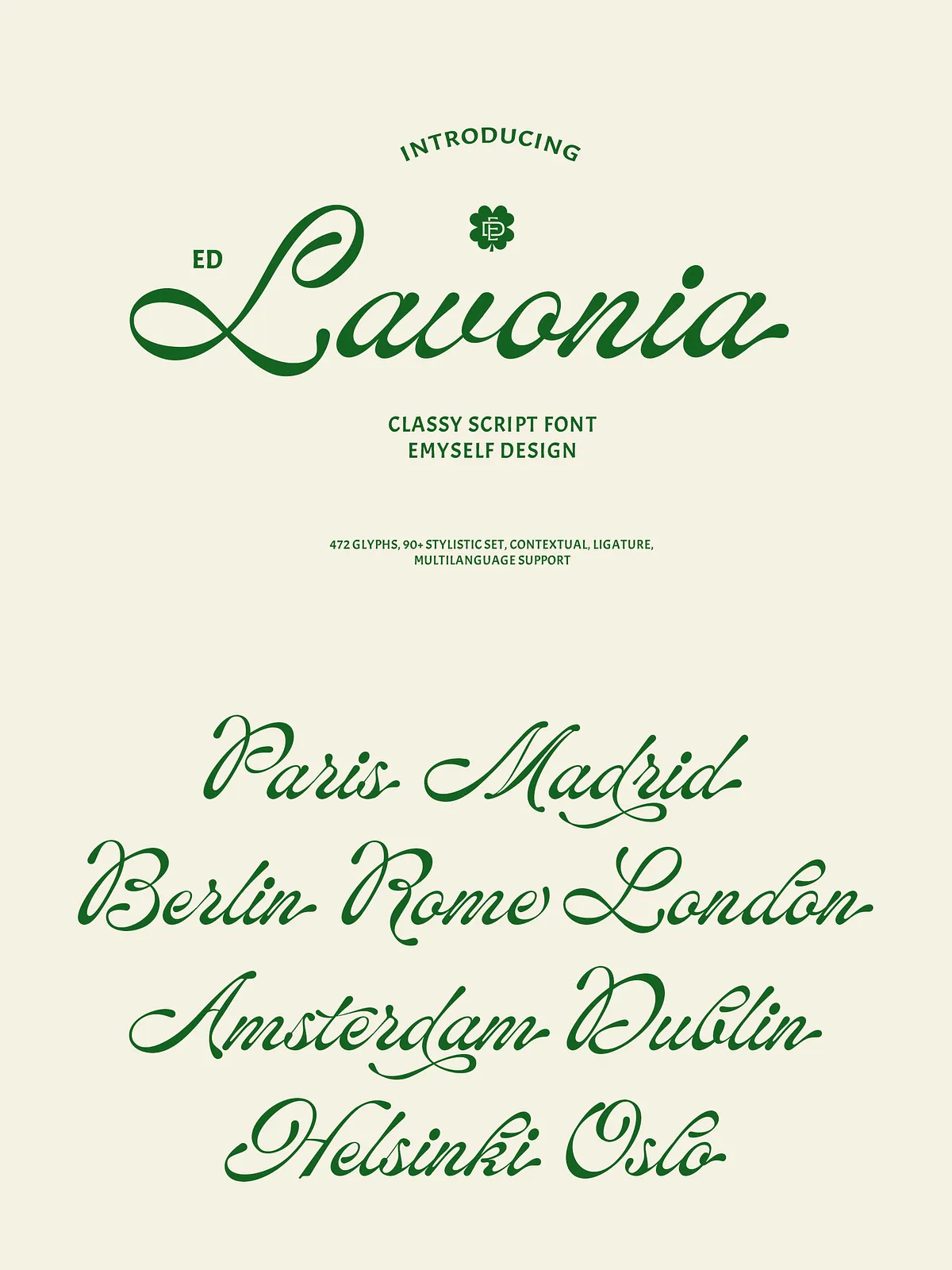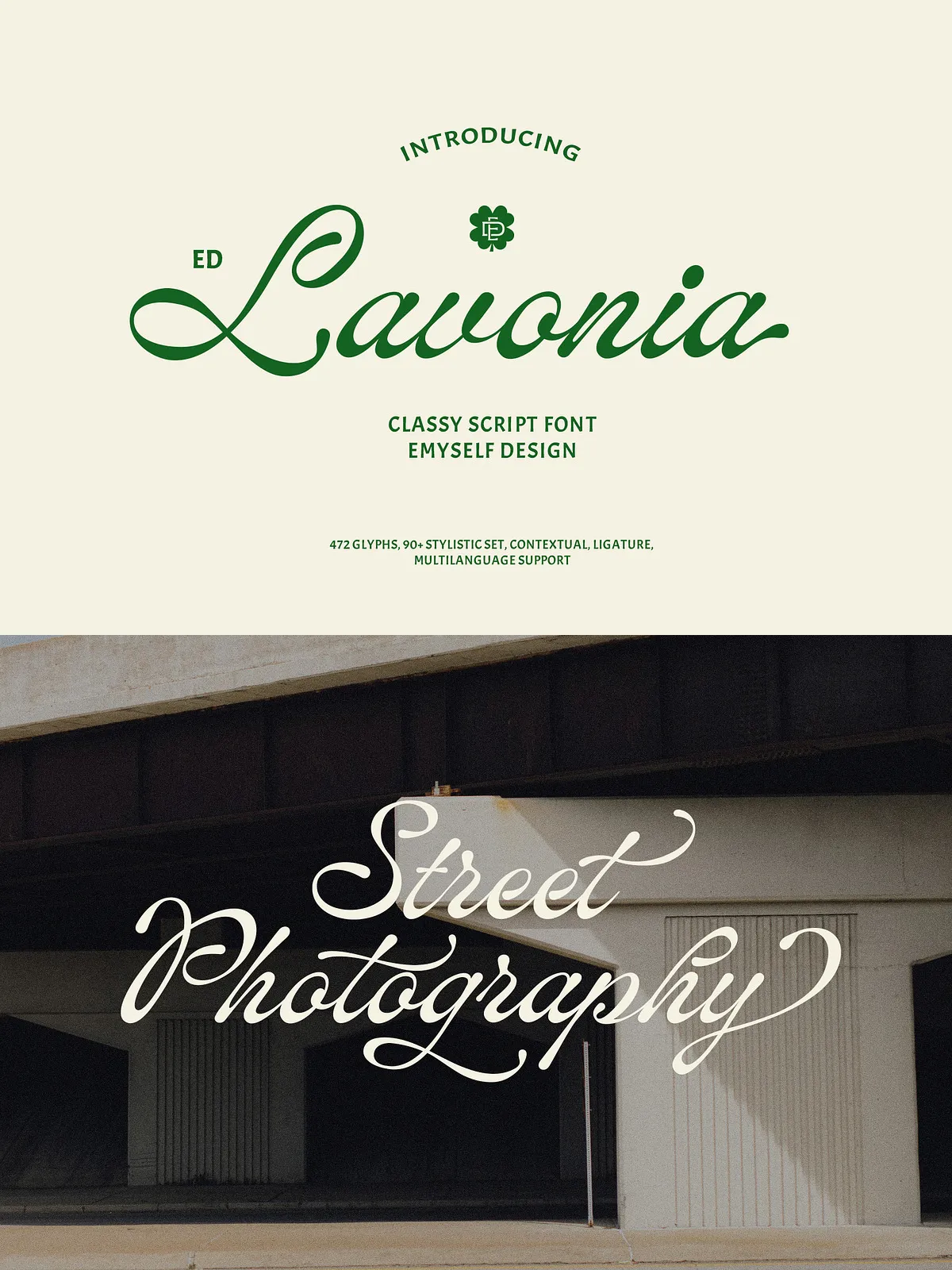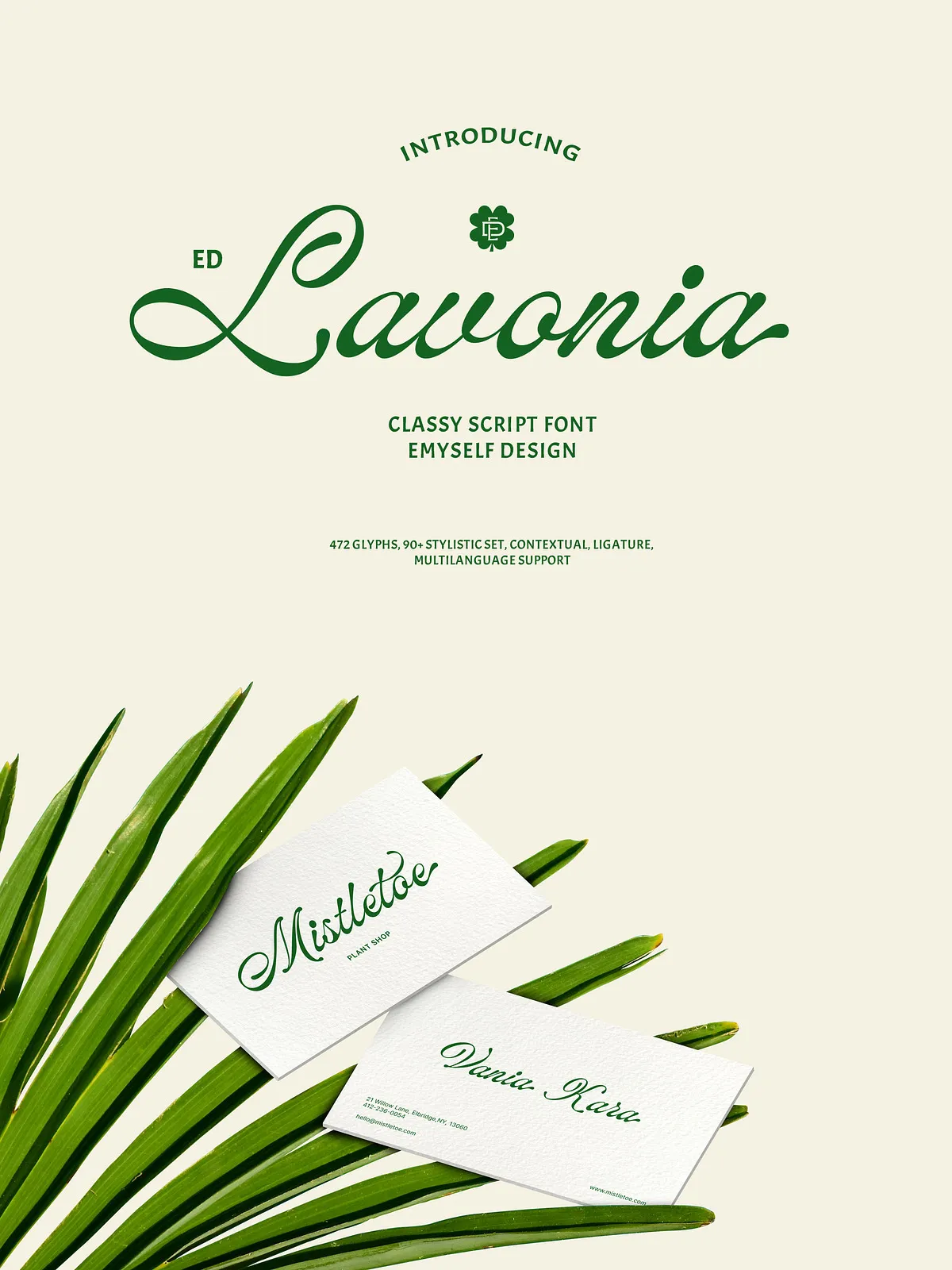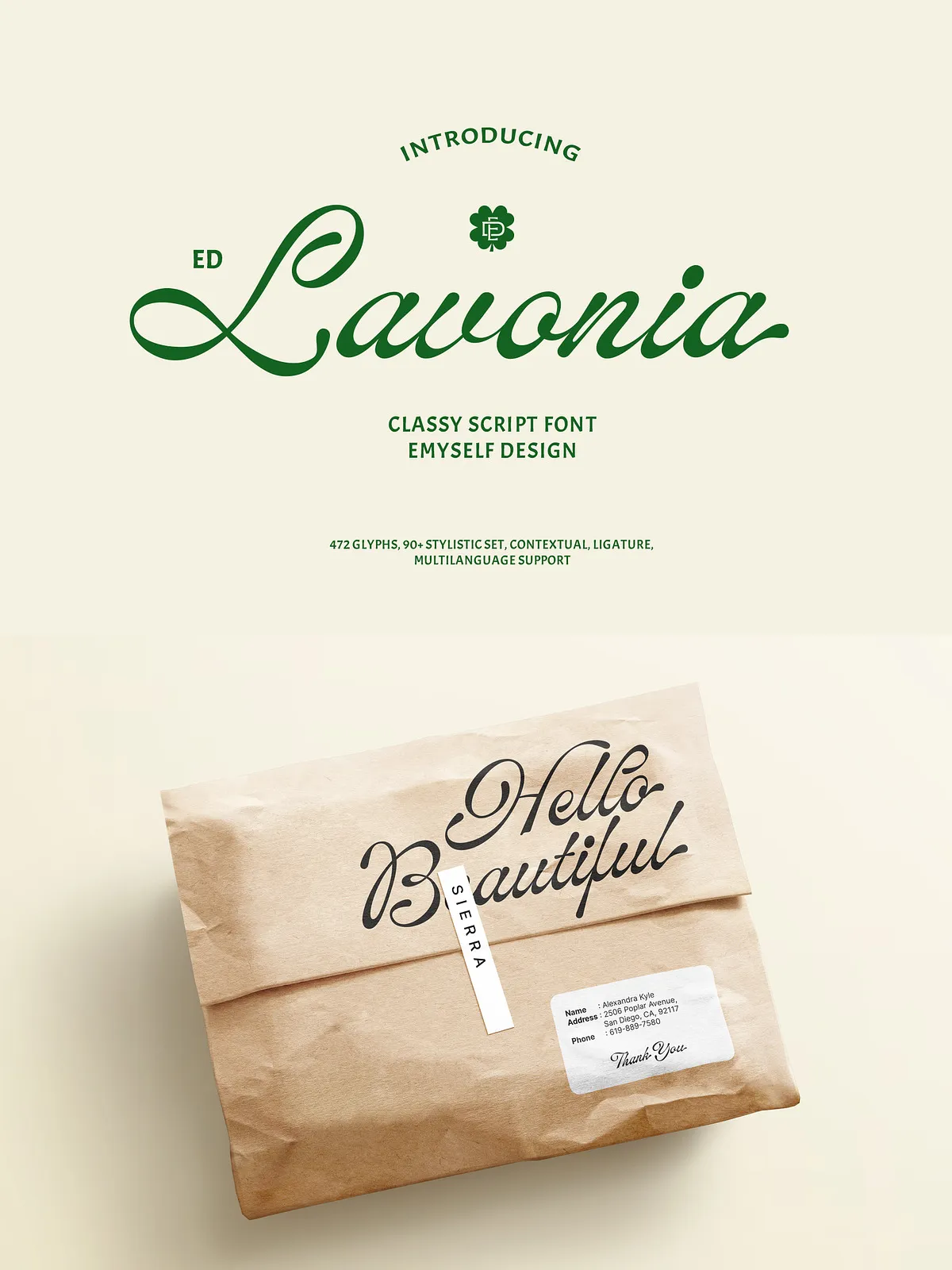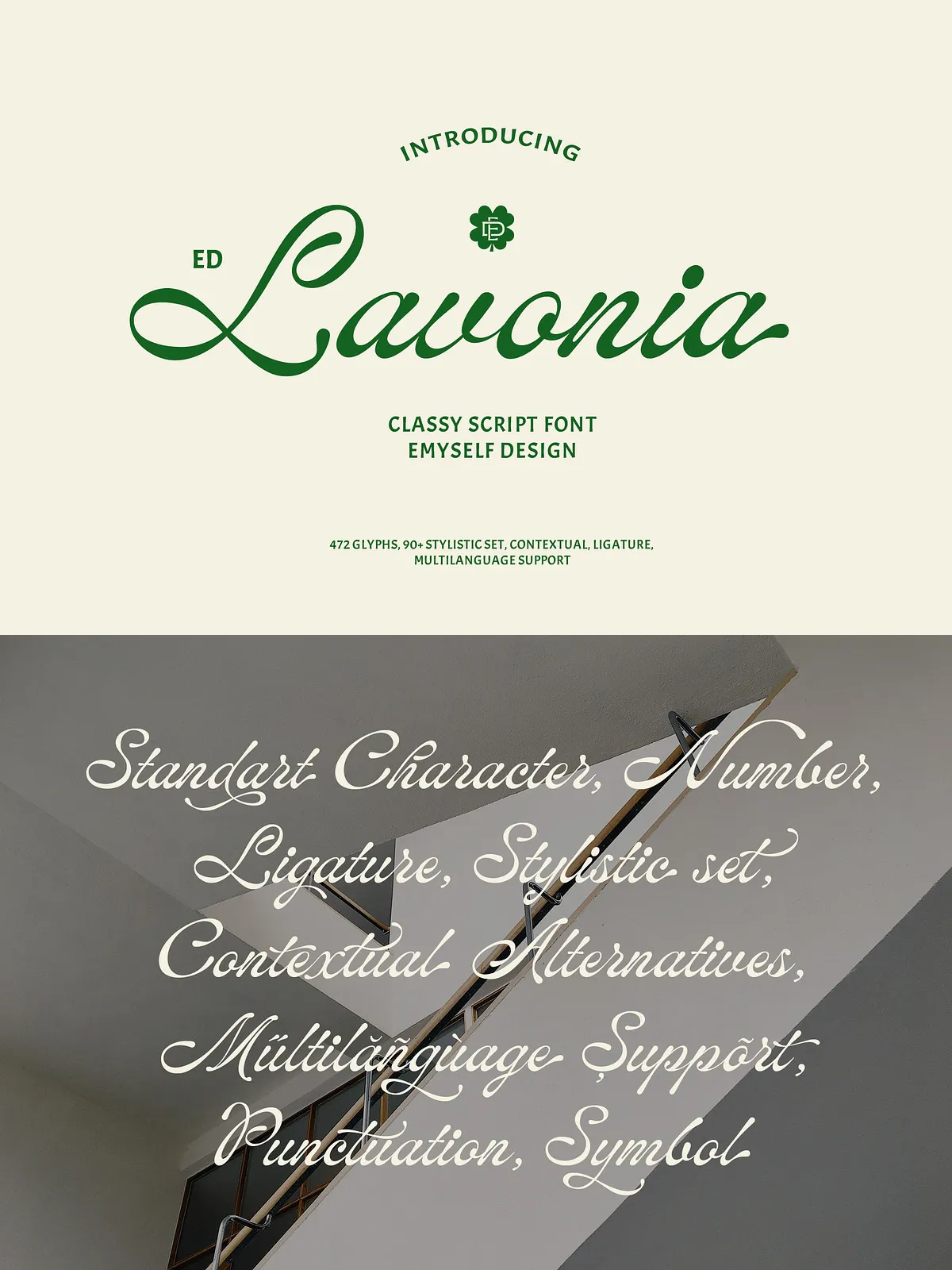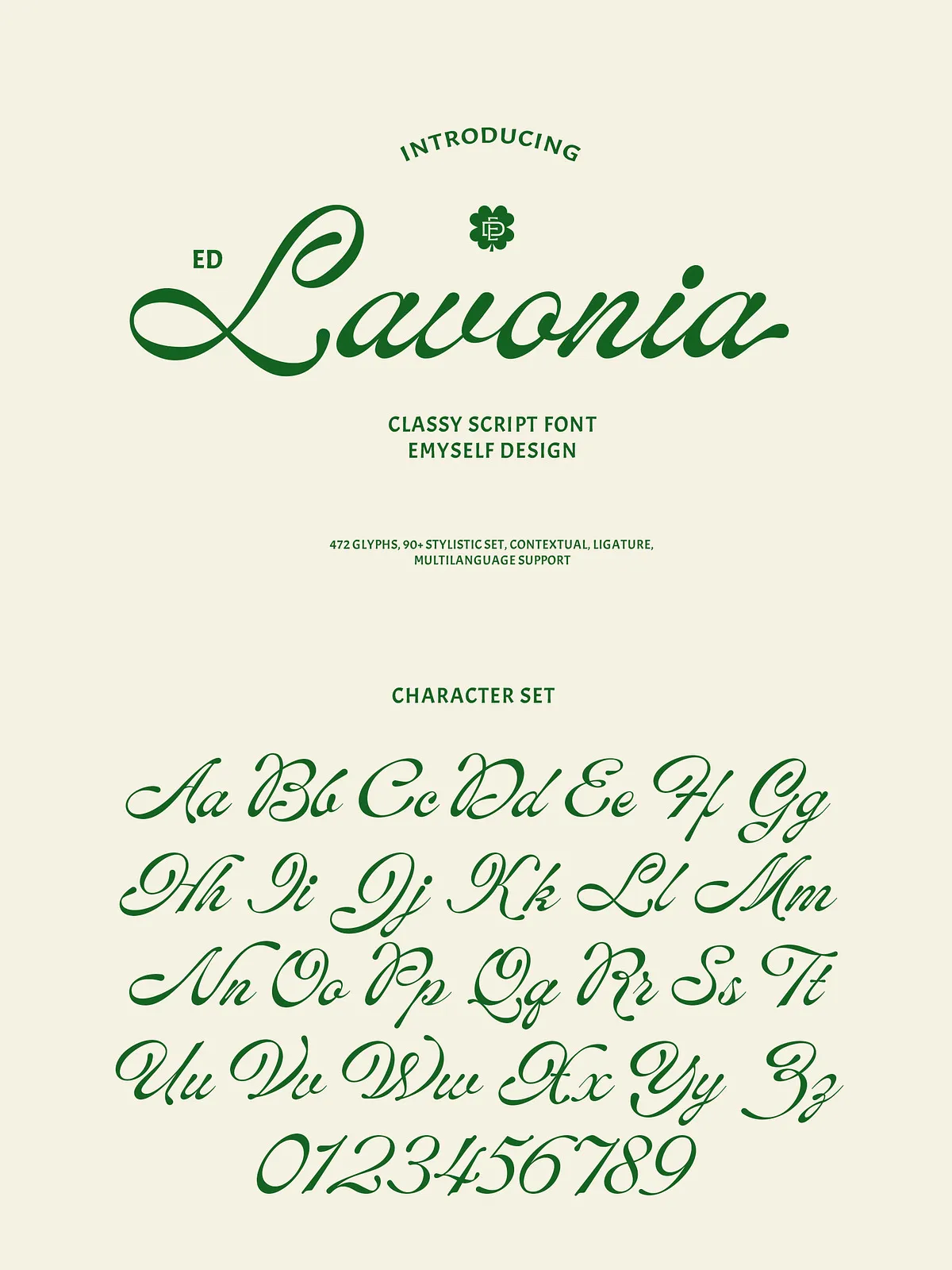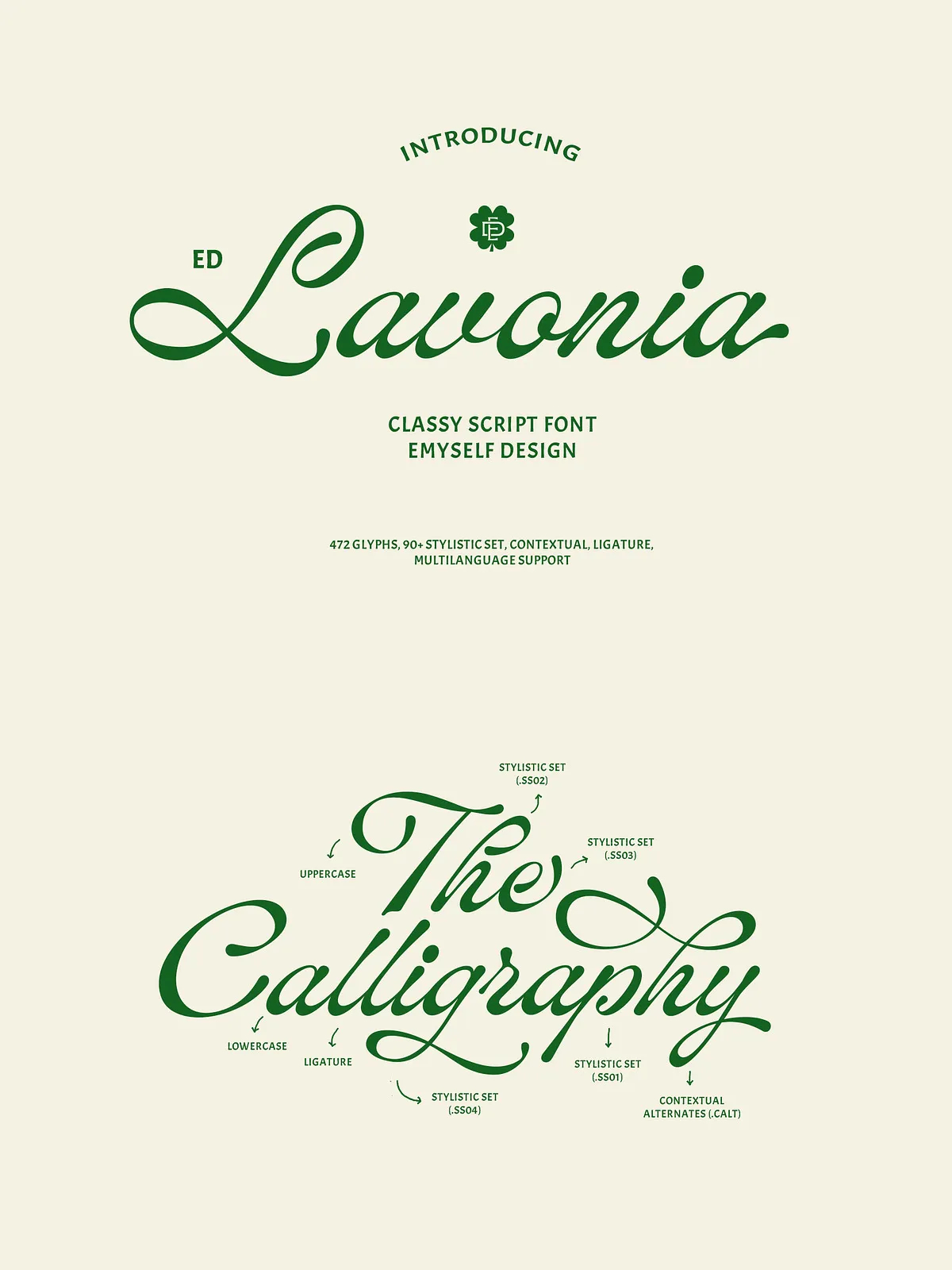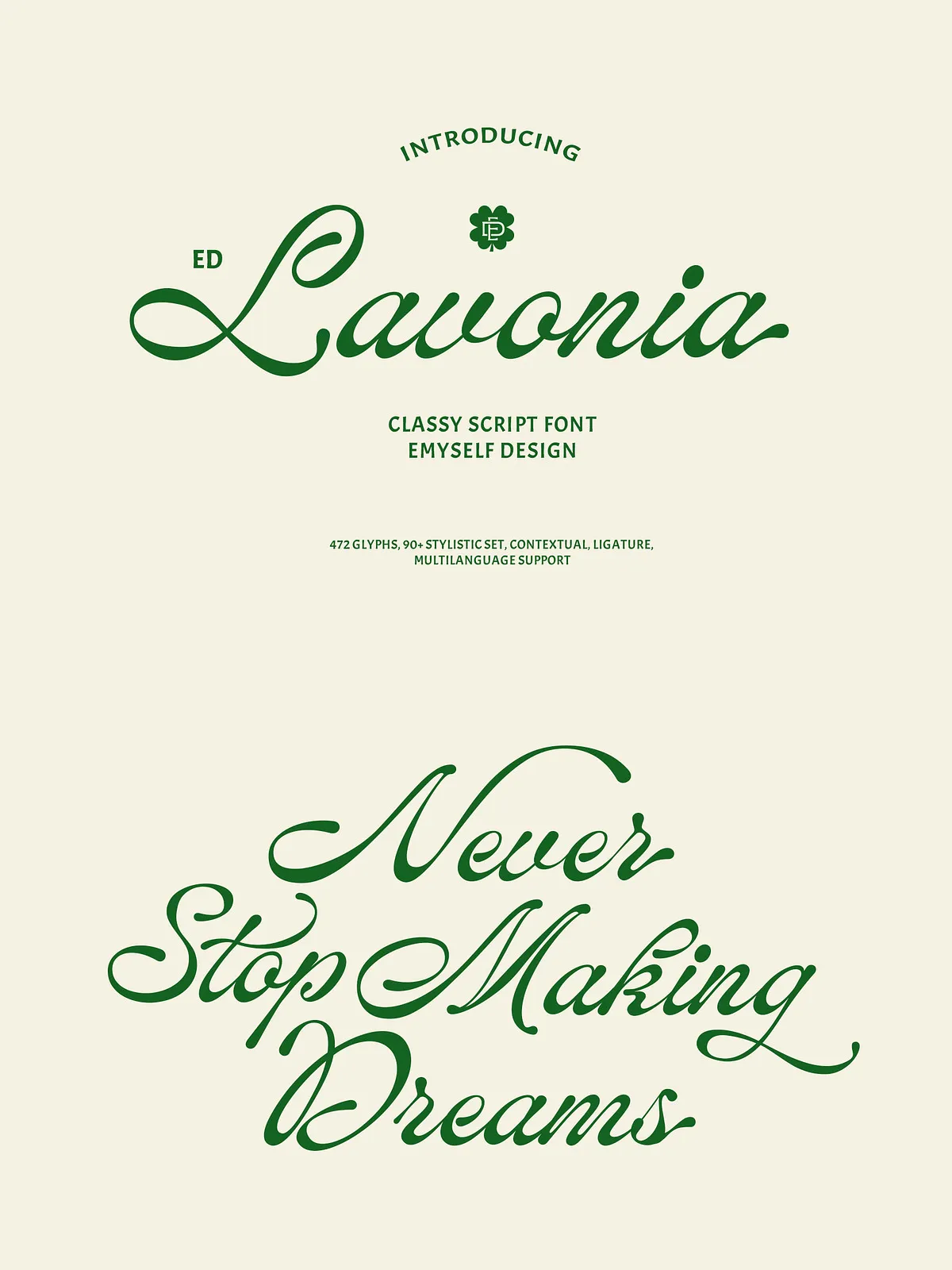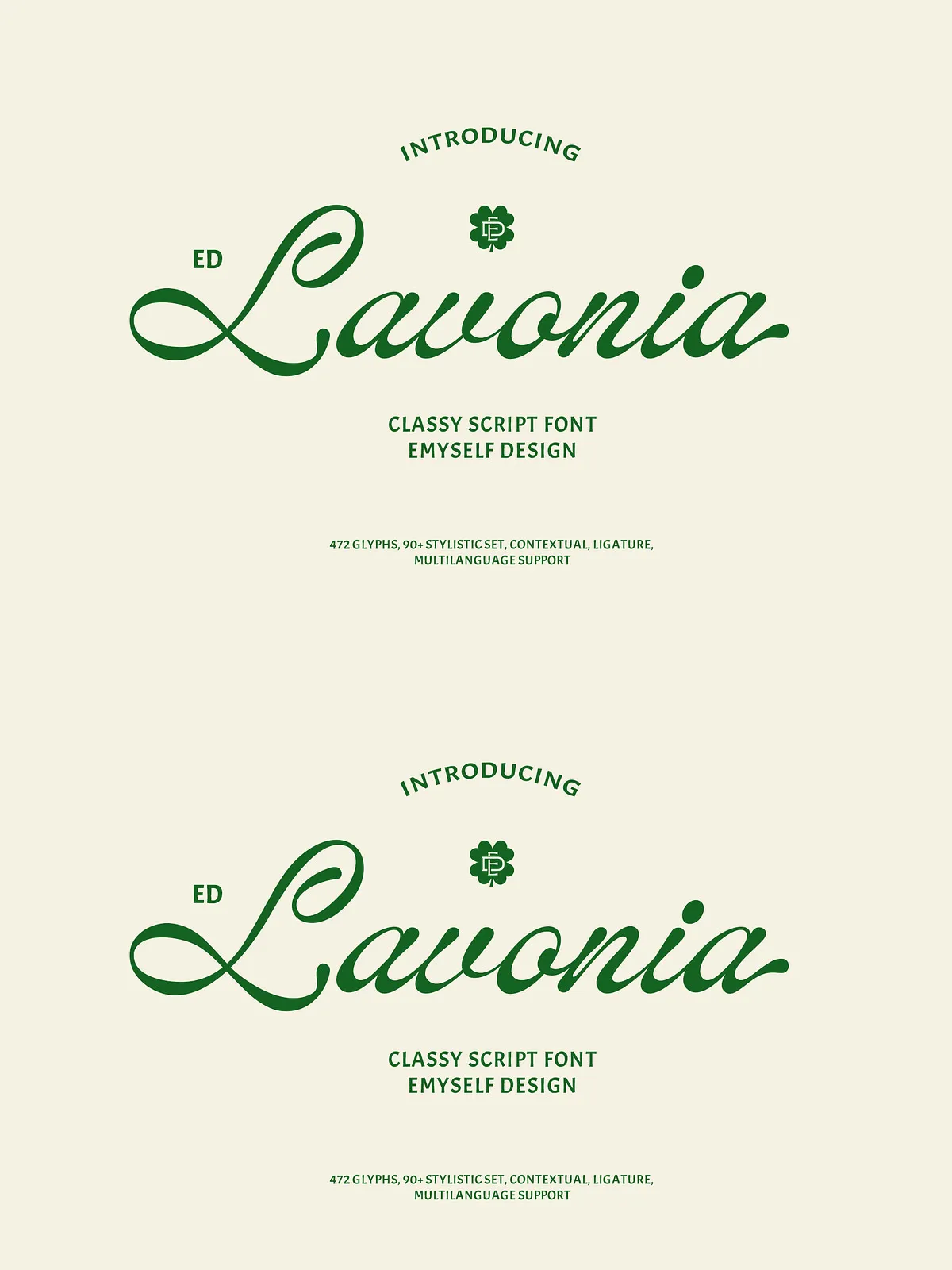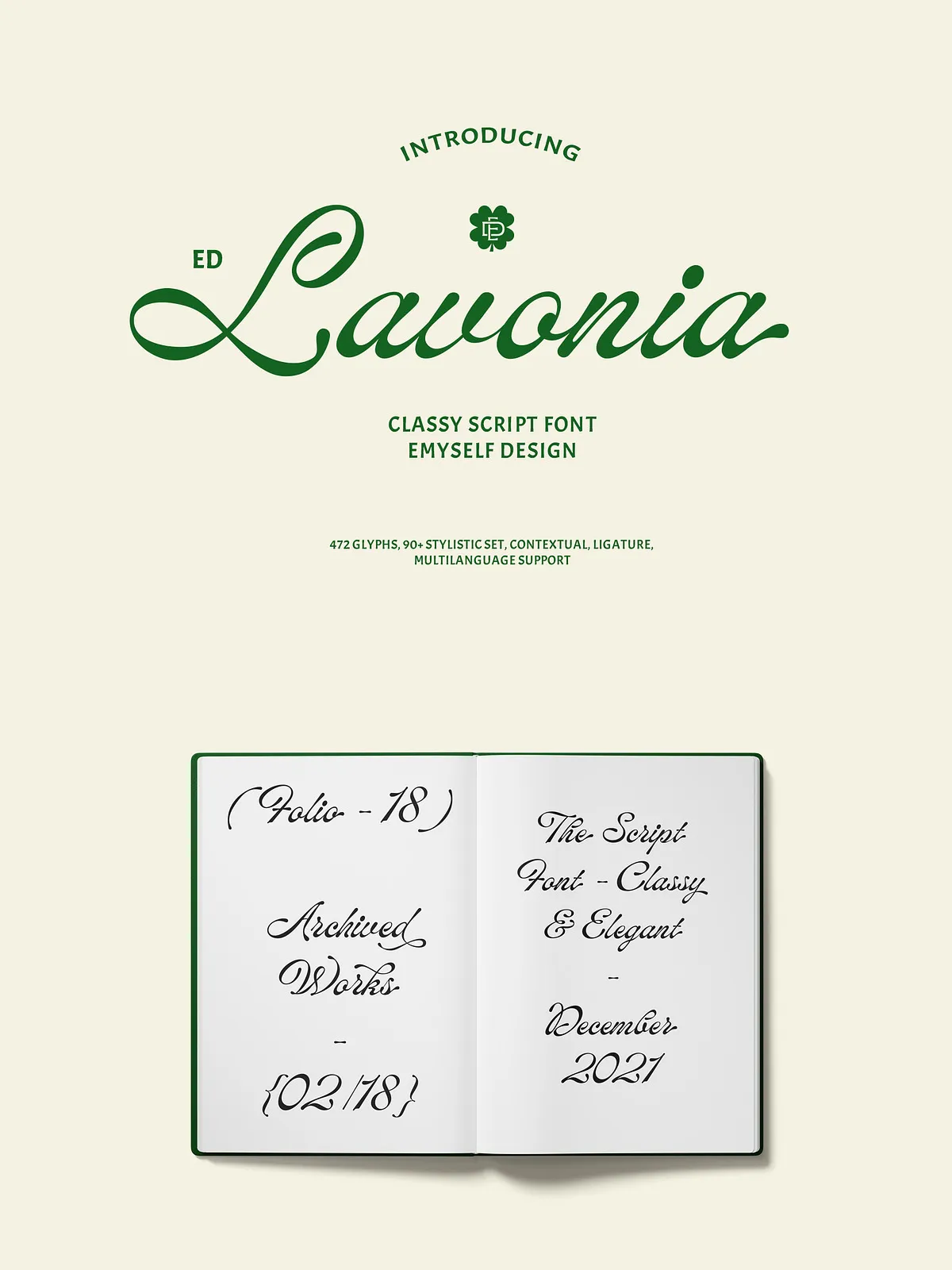
Transform your creative vision with Lavonia Script — a modern classic script font that captures the soul of vintage handwriting while delivering the precision and versatility needed for today’s design challenges. Every curve, every flourish, every subtle lift of the pen has been handcrafted to evoke emotion, authenticity, and timeless style.
This isn’t just a font — it’s a storytelling tool. Whether you’re designing a luxury brand identity, a heartfelt invitation, or a bold editorial piece, Lavonia Script adds a layer of human touch that digital fonts often lack. Its natural flow mimics the rhythm of real handwriting, making your message feel personal, intimate, and deeply meaningful.
Rich & Expressive: A Designer’s Dream Collection of Features
Lavonia Script is packed with dynamic typographic tools that give you creative freedom like no other script font. With over **472 unique glyphs**, you’re not limited to basic letters — you’re empowered to design with intention.
Explore its full potential with:
- 90+ Stylistic Sets – Instantly alter the mood of your text with different flourishes, swashes, and variations. Choose a refined, elegant style for formal branding, or go bold and fluid for artistic posters and album covers.
- Contextual Alternates – The font automatically adjusts letterforms based on their surrounding characters, creating natural, harmonious flow that prevents awkward spacing and adds depth to your layouts.
- Handcrafted Ligatures – Combine characters into fluid, connected sequences that mimic real handwriting. Use them to break visual monotony in long text or draw attention to key words.
- Full Multi-Language Support – Lavonia Script supports Latin-based languages across Europe and the Americas, including French, German, Italian, Spanish, Portuguese, Dutch, Swedish, and more – with full diacritic coverage for authentic, professional results.
- Complete Character Set – Includes uppercase and lowercase letters, punctuation, symbols, currency signs, mathematical notation, and marks — everything you need for any design project.
Where Lavonia Script Shines: Creative Applications That Inspire
Designers across industries rely on Lavonia Script to elevate their work. Here’s where it truly stands out:
- Logotypes & Brand Identities – Craft unique, memorable brand names that communicate personality and warmth. Perfect for boutiques, beauty brands, artisanal goods, and lifestyle companies.
- Invitations & Stationery – Whether it’s a wedding, baby shower, or gala event, Lavonia Script adds a touch of refined elegance that guests will remember.
- Product Packaging & Labels – Make your product stand out on shelves with packaging that feels handcrafted and premium, even for mass-market goods.
- Headers & Editorial Design – Use in magazines, books, or online articles to introduce stories with emotion and character.
- Apparel & Merchandise – Print on t-shirts, tote bags, mugs, and hats — ideal for brands with a storytelling or craft aesthetic.
- Web & Digital Design – Add personality to hero sections, buttons, quotes, or social media graphics with a font that feels human and approachable.
- Letterheads & Business Cards – Make a statement with professional yet personal communication tools.
Pro Design Tips: Make Lavonia Script Your Signature Style
- Use Stylistic Sets Purposefully: Don’t rely on all 90+ sets at once. Pick 2–3 per design to maintain clarity and prevent visual clutter.
- Combine with Clean Sans-Serifs: Pair Lavonia Script with a minimalist body font to create contrast — let the script shine as the focal point.
- Limit Length in Long Texts: This is a display script. Save it for headlines, quotes, or short blocks. Avoid using it for paragraphs.
- Adjust Kerning Manually: For maximum impact, fine-tune spacing between letters in key words or names to enhance rhythm and readability.
- Test Across Media: Ensure your design holds up in both print (high-res packaging) and digital (web banners, social posts).
Elevate Every Project with Handcrafted Soul
Lavonia Script isn’t just about aesthetics — it’s about connection. It brings warmth to cold designs. It gives identity to faceless brands. It turns a simple message into a moment of beauty.
Whether you’re a graphic designer, branding specialist, publisher, or creative entrepreneur, this font gives you the power to create with intention, emotion, and soul.